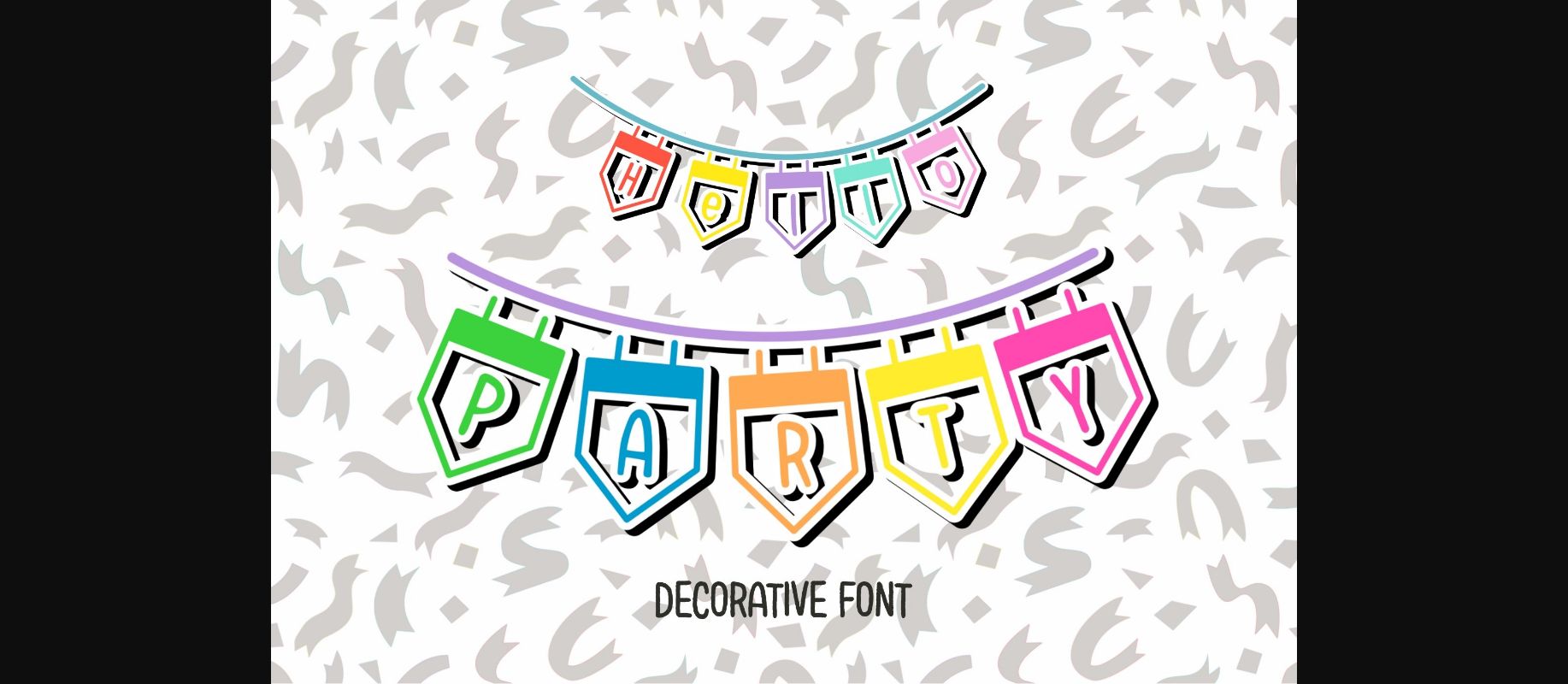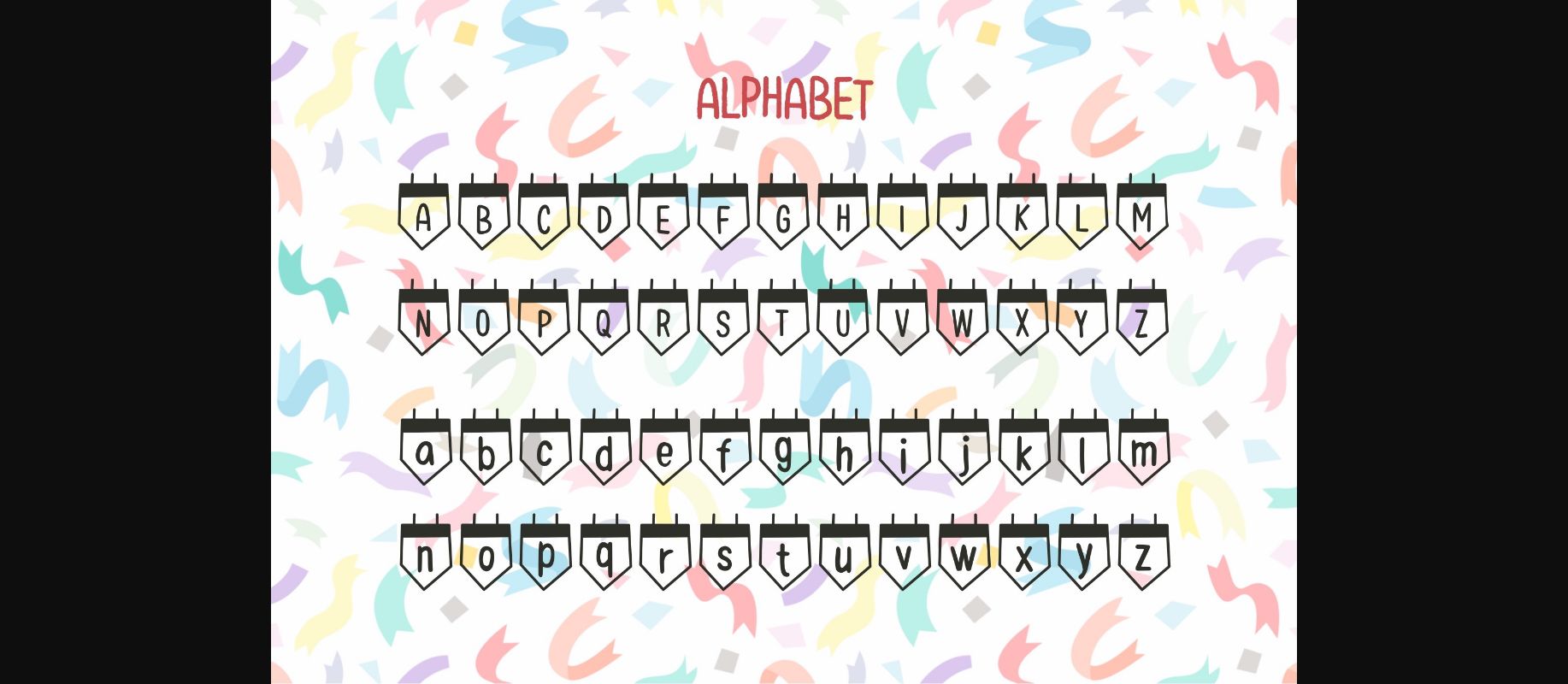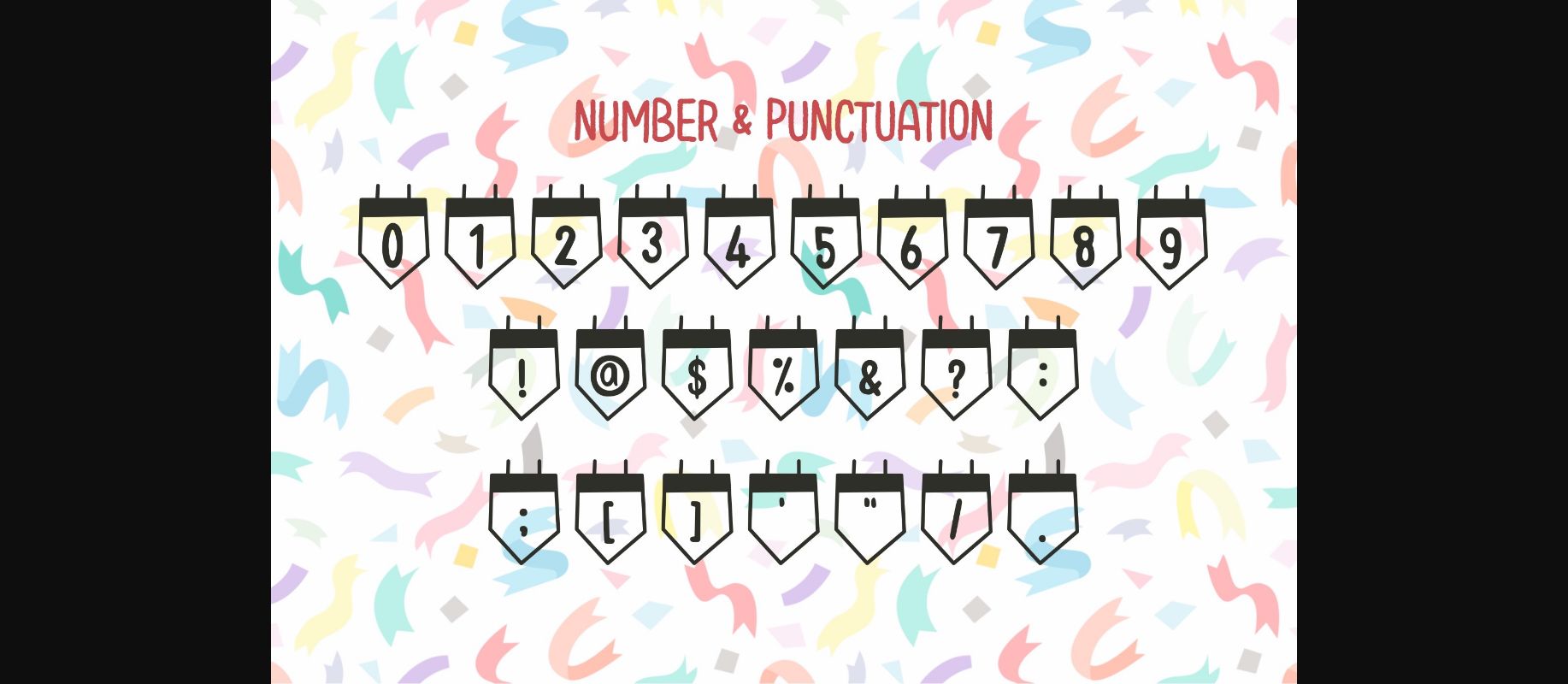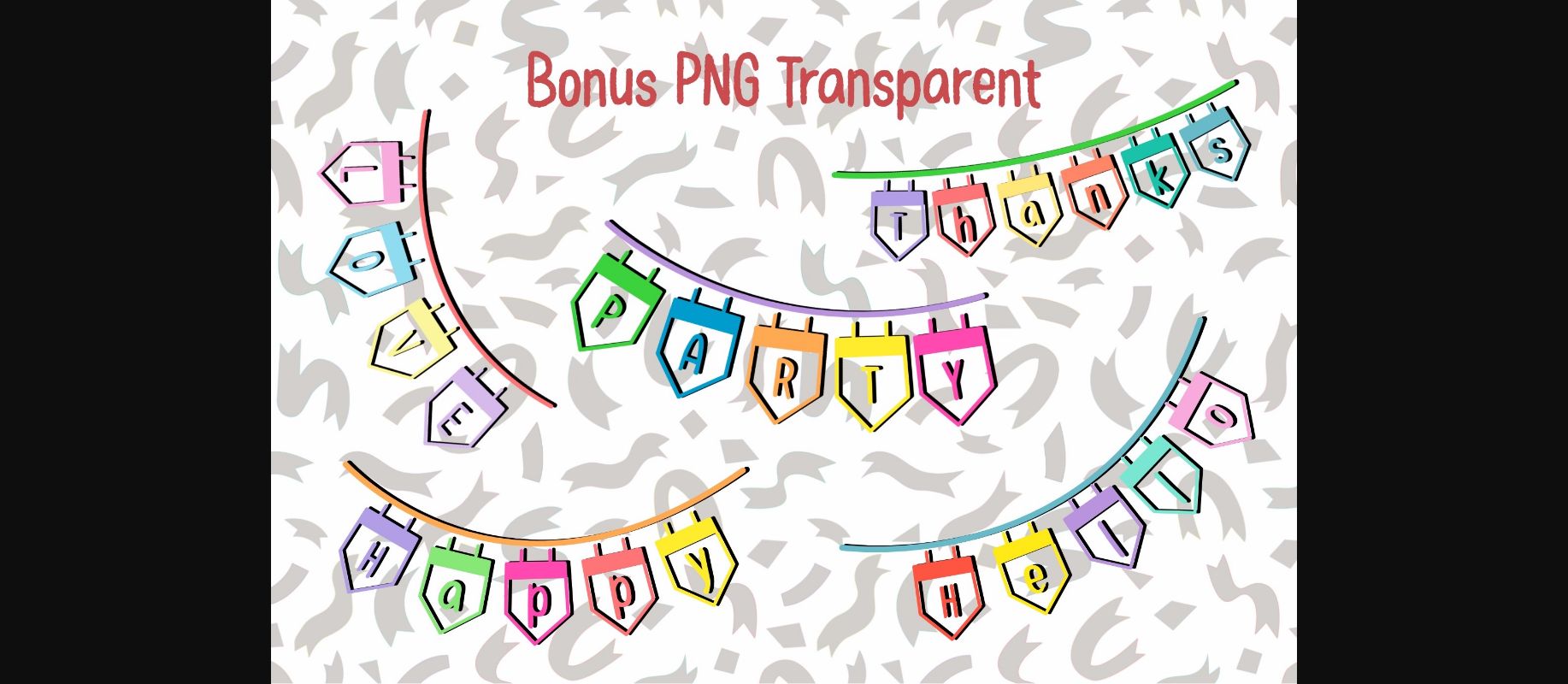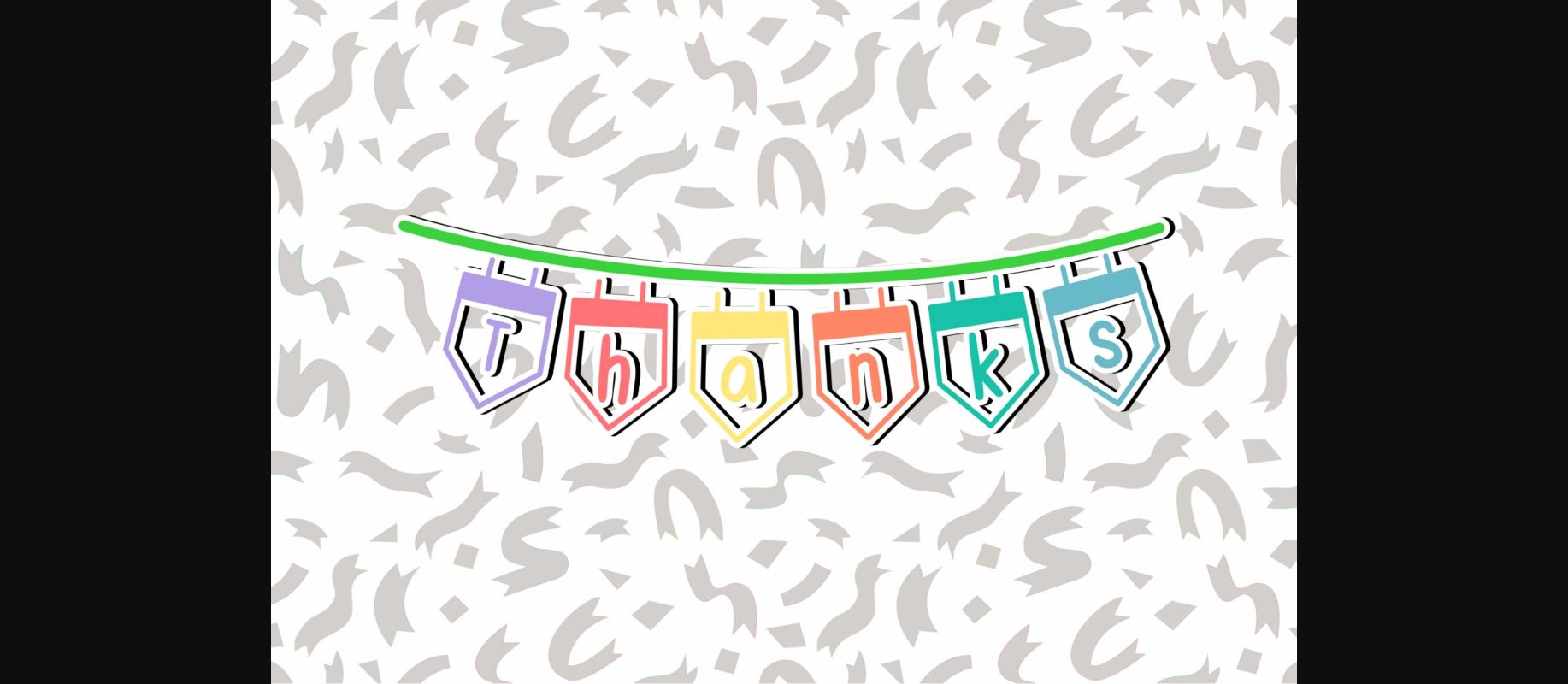
HomeDecorative FontsHello Party Font Decorative Fonts Hello Party Font FacebookXPinterestWhatsApp 1 of 7 ... Hello Party Font Poster 2... Hello Party Font Poster 3... Hello Party Font Poster 4... Hello Party Font Poster 5... Hello Party Font Poster 6... Hello Party Font Poster 7... About Hello Party Font Hello Party is a fun and unique decorative font. This font is the perfect fit for all of your logos, branding, social media, crafty DIY projects, and much more! DOWNLOAD NOW People also explored Karbonala Font Lust Script Cintthia Font Magical Star Font Flower Valentine Font A Valentine Story Font Hong Kong Why Font Together Better Font 328 0 TagsHello Party Font Previous articleApril Dawn FontNext articleSpring Smile Font LEAVE A REPLY Cancel reply Comment: Please enter your comment! Name:* Please enter your name here Email:* You have entered an incorrect email address! Please enter your email address here Website: Save my name, email, and website in this browser for the next time I comment. Personal Use Free Wintersoul Personal Use Free Read more about this font Autines Personal Use Free Read more about this font Gagalin Personal Use Free Read more about this font Ashay Personal Use Free Read more about this font BLOG Free vs Paid Fonts: Why Investing in Premium Fonts Is Worth It Free vs Paid Fonts: Why Premium Fonts Are Worth It in 2025 The debate of free vs paid fonts continues in the design world. While... Exploring Font Trends Fonts That Capture the Spirit of New York City Top 7 Google Fonts Alternatives for Faster and Privacy-Friendly Web Design (2025)